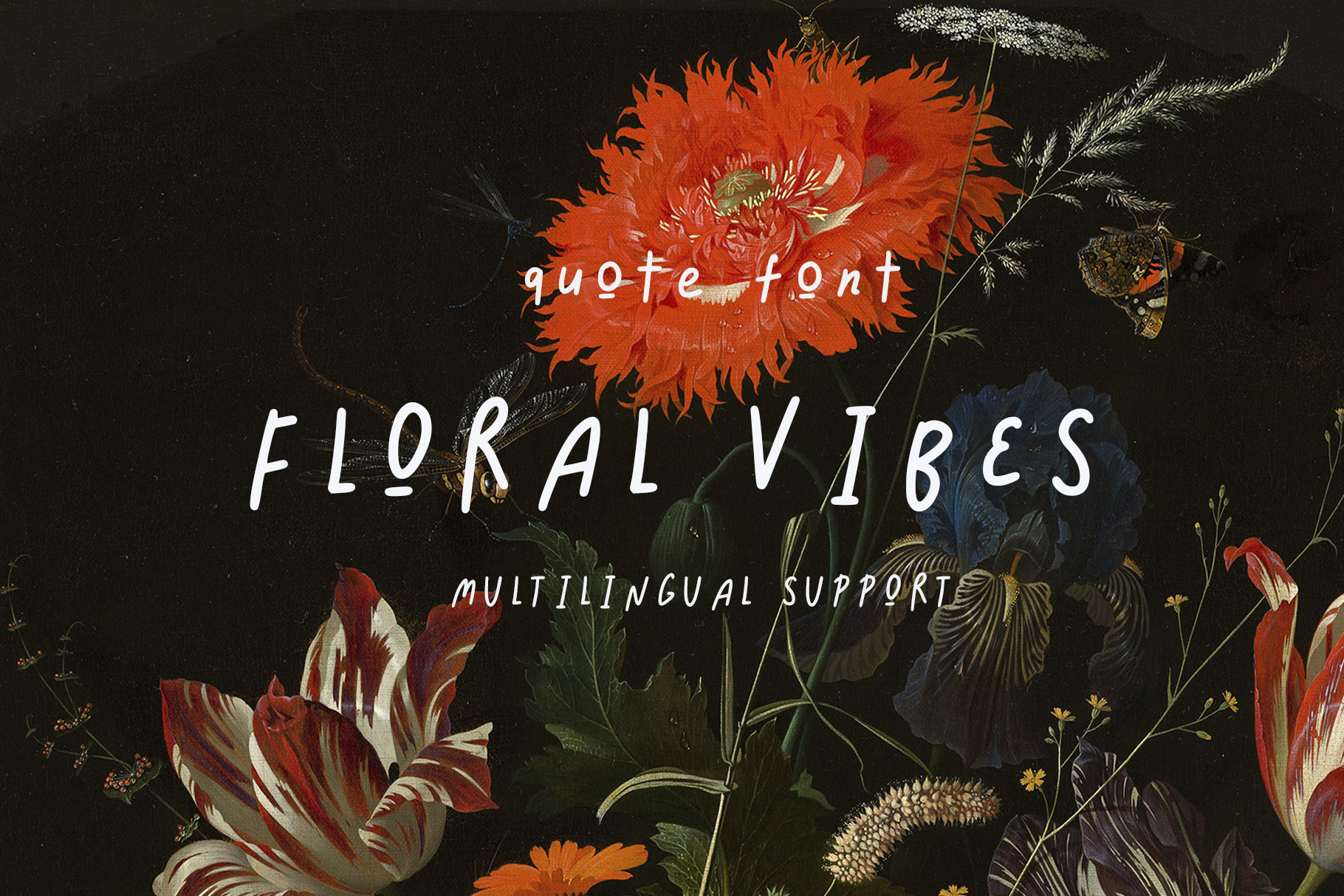
FLORAL VIBE - HANDWRITTEN QUOTE FONT
My new handwritten quotable font - FLORAL VIBE. Perfect for digital notetaking, logos, book cover, social media posts, posters, quotes, cards, calendars, etc.
P.S. it's my handwriting :)
MULTILIGUALE SUPPORT